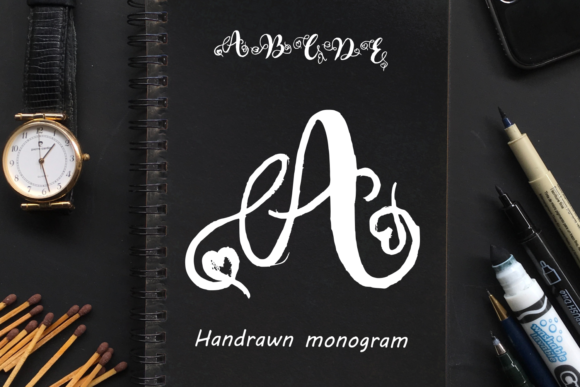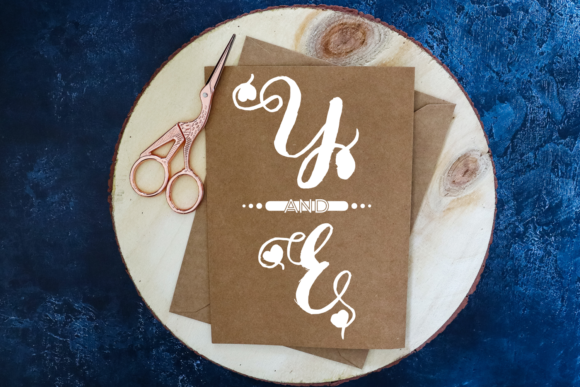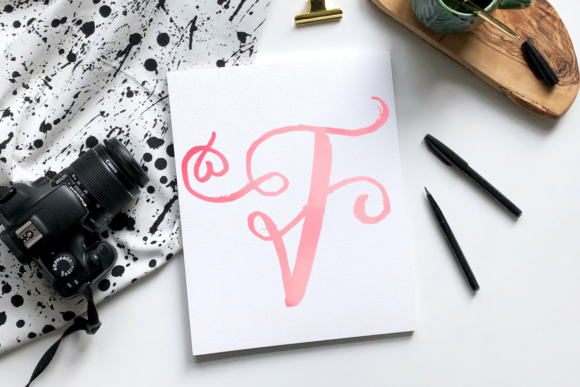
Introducing Farmhouse Font: A Charming and Elegant Hand-Drawn Typeface
Are you a designer, crafter, or DIY enthusiast looking for a font that exudes romance and elegance? Look no further than Farmhouse Font, a beautiful hand-drawn typeface that is perfect for a wide range of creative projects. In this article, we’ll take a closer look at the Farmhouse Font, its features, and how you can use it to add a touch of sophistication to your designs.
Farmhouse Font is an elegant and dainty hand-drawn font with a romantic theme. This original look will appeal to a wide range of crafty ideas, from letterheads and titles, to stationery. The font features delicate lines, intricate details, and a whimsical feel that is sure to capture the hearts of designers and crafters alike.
- Hand-drawn with love: Farmhouse Font is carefully crafted by hand, giving it a unique and personal touch.
- Elegant and dainty: The font features a slender and refined design that is perfect for creating sophisticated and stylish designs.
- Romantic theme: Farmhouse Font is designed with a romantic theme in mind, making it ideal for wedding-related projects, invitations, and other special occasions.
- Versatile: This font can be used for a wide range of creative projects, from letterheads and titles to stationery and more.
Use Cases for Farmhouse Font
Farmhouse Font is a versatile typeface that can be used for a variety of creative projects, including:
- Wedding invitations and stationery: The romantic theme and elegant design of Farmhouse Font make it perfect for wedding-related projects.
- Letterheads and titles: The font’s slender design and intricate details make it ideal for creating sophisticated letterheads and titles.
- Stationery and greeting cards: Farmhouse Font can be used to create beautiful and stylish stationery and greeting cards.
- DIY projects: Crafters and DIY enthusiasts can use Farmhouse Font to add a touch of elegance to their projects, such as handmade crafts, signs, and more.
Here are some tips for using Farmhouse Font in your designs:
- Pair with complementary fonts: Farmhouse Font can be paired with other fonts to create a unique and interesting design.
- Use for headlines and titles: The font’s elegant design makes it perfect for headlines and titles.
- Add a personal touch: Farmhouse Font’s hand-drawn design gives it a personal touch, making it ideal for projects that require a human touch.
Farmhouse Font is a beautiful and elegant hand-drawn typeface that is perfect for designers, crafters, and DIY enthusiasts. With its romantic theme, delicate lines, and intricate details, this font is sure to add a touch of sophistication to any design project. Whether you’re creating wedding invitations, letterheads, or stationery, Farmhouse Font is a versatile typeface that is sure to impress.